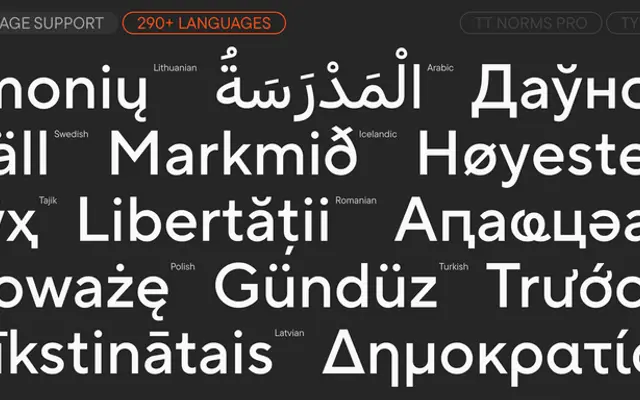
TT Norms® Pro
TypeType · 2017
A wide-ranging geometric sans from TypeType, used in brand identities for DreamWorks, AliExpress, Crocs and CBS, with 104 styles spanning condensed, expanded and monospaced subfamilies.
First released in 2017 and substantially expanded since, TT Norms Pro covers a large range of widths and weights, from Thin to Black across condensed, compact, regular and expanded cuts, plus a monospaced subfamily and two variable fonts. Arabic script support arrived in 2025, bringing the total language coverage to Latin, Cyrillic and Arabic. Twenty stylistic sets give designers access to alternate letterforms including single-storey 'a', slashed zero and circled figures.
TypeType describe it as a geometric sans serif; its circular, optically balanced letterforms and even stroke weight are characteristic of the geometric tradition rather than humanist or grotesque approaches.